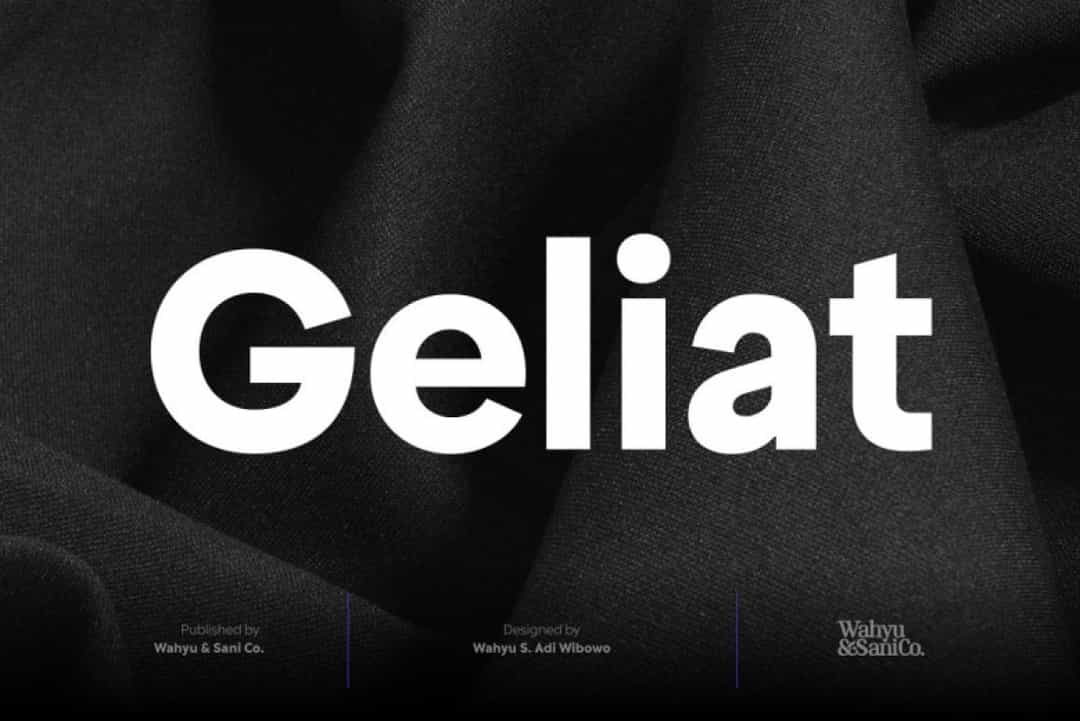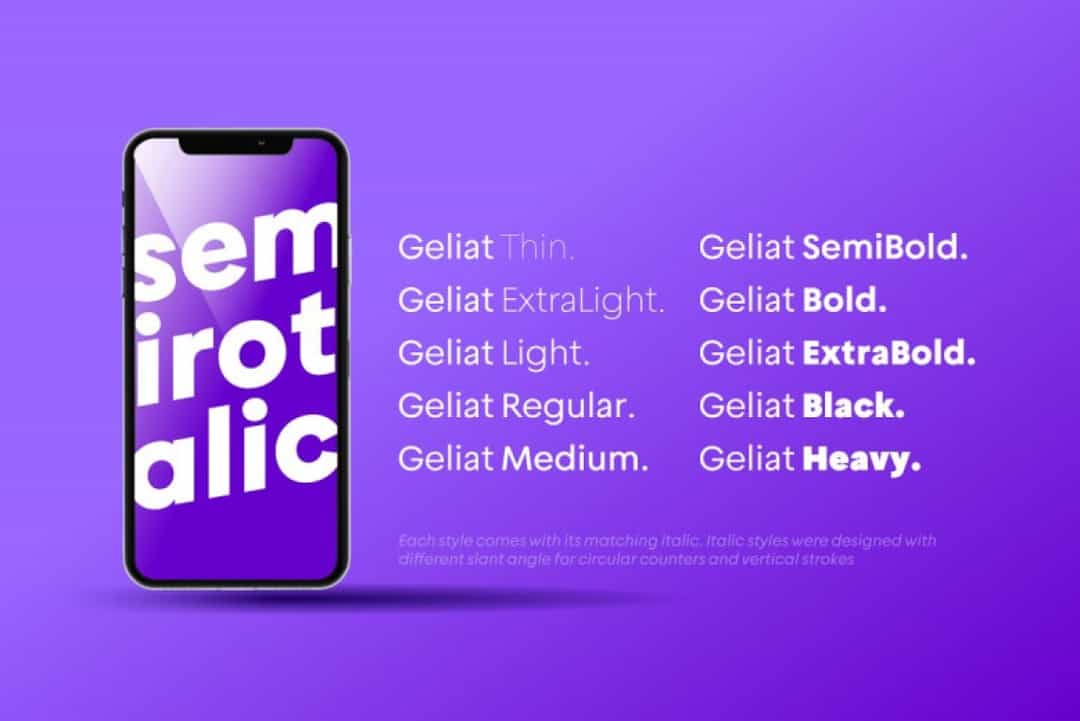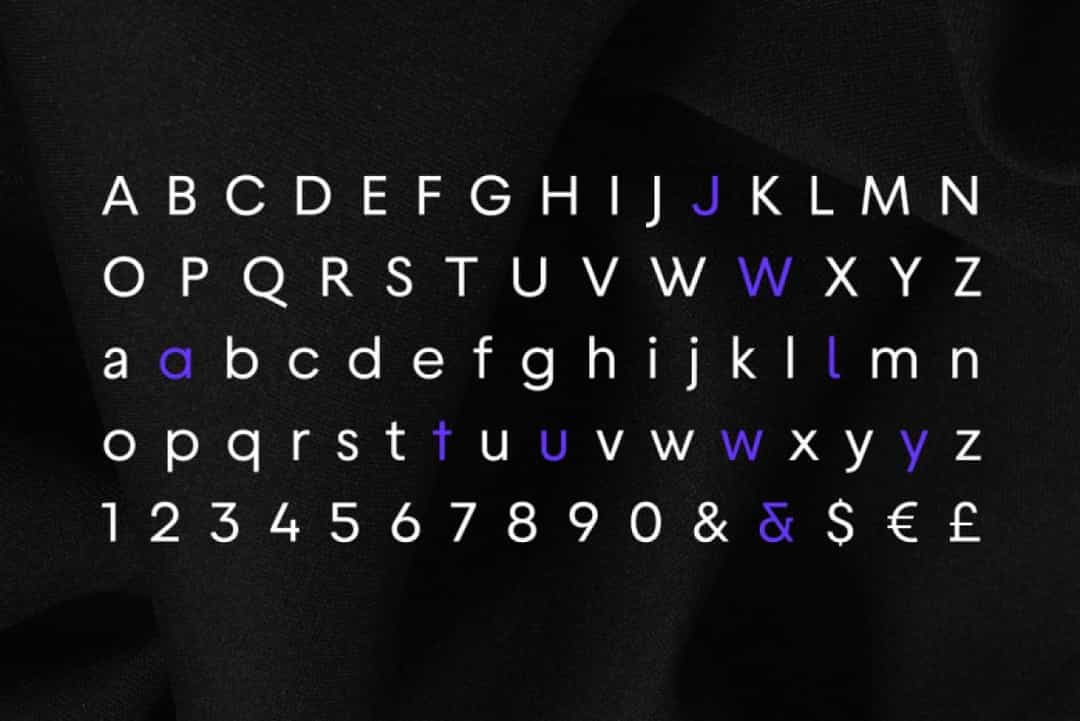
Our new font release is Geliat Extralight and Extrabold Font, the sister to Creo, similar in proportions and letterform but with more geometric shapes. There are two styles in this font family and both of them contain other glyphs not included in the default set; the letters of Geliat resemble Creo, but the letters of Alt are geometrical.